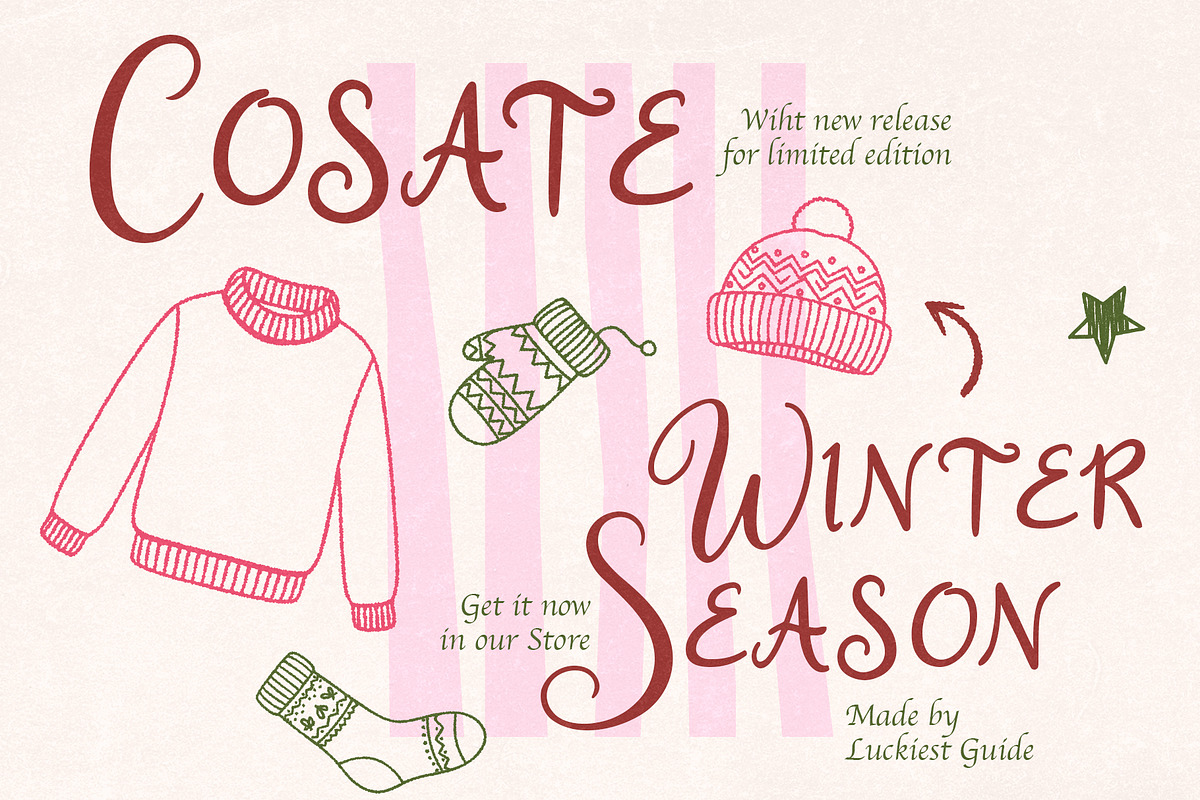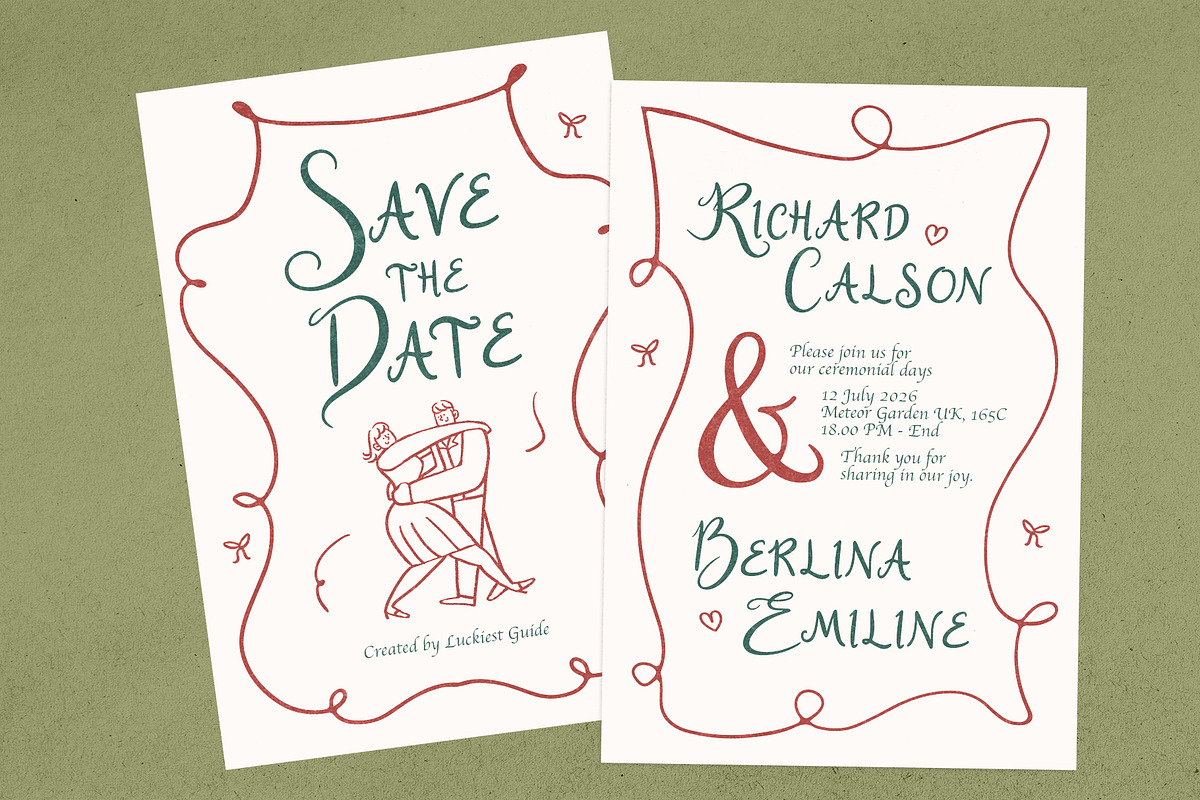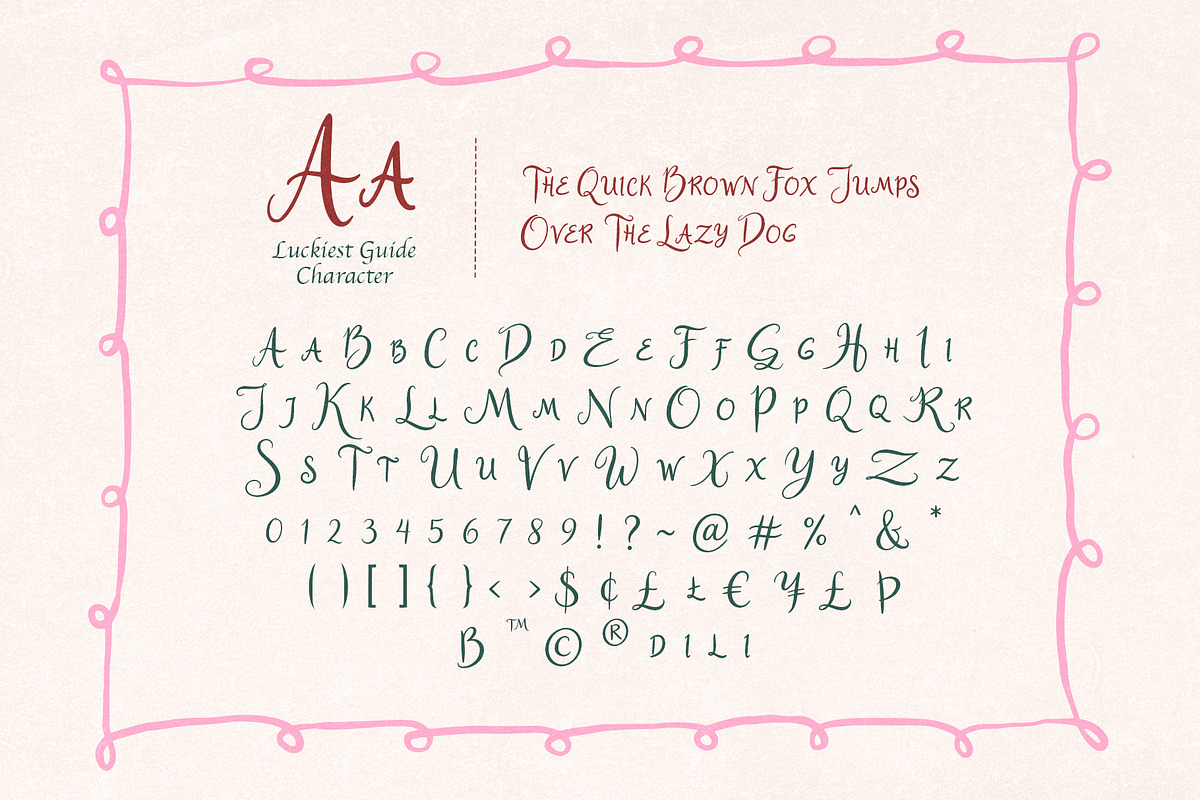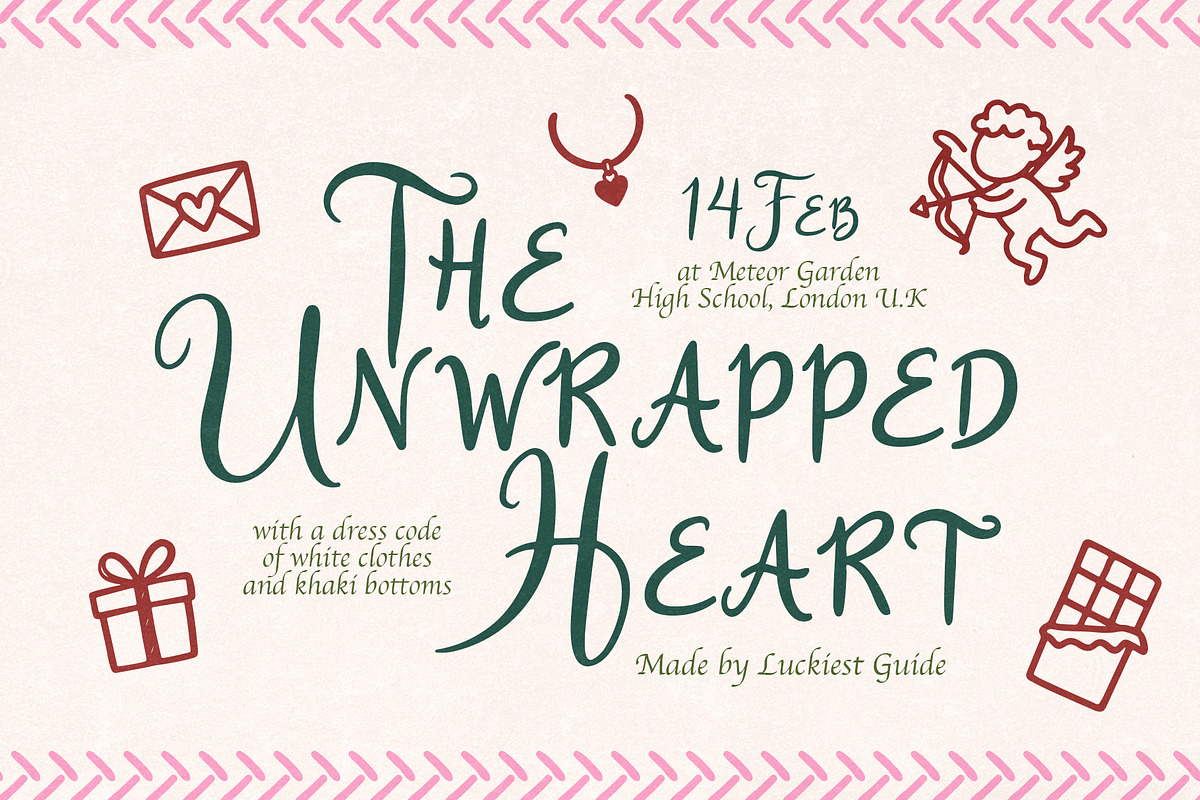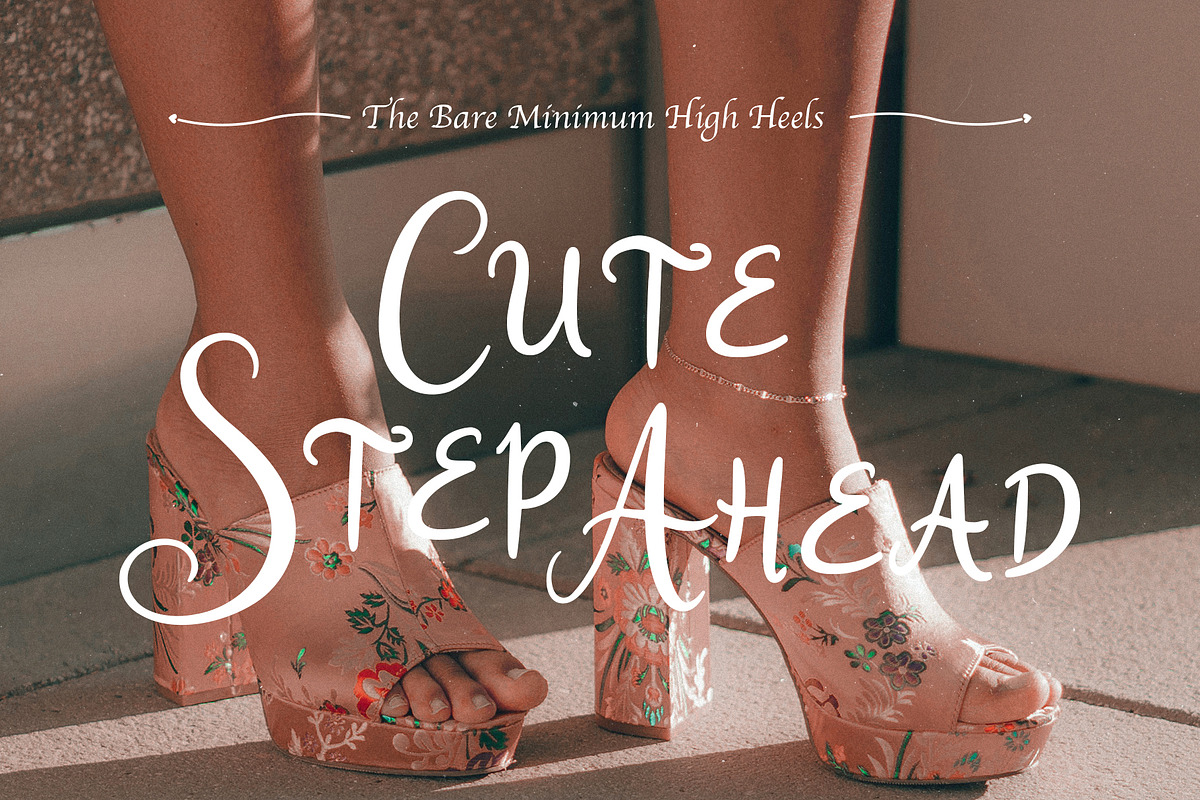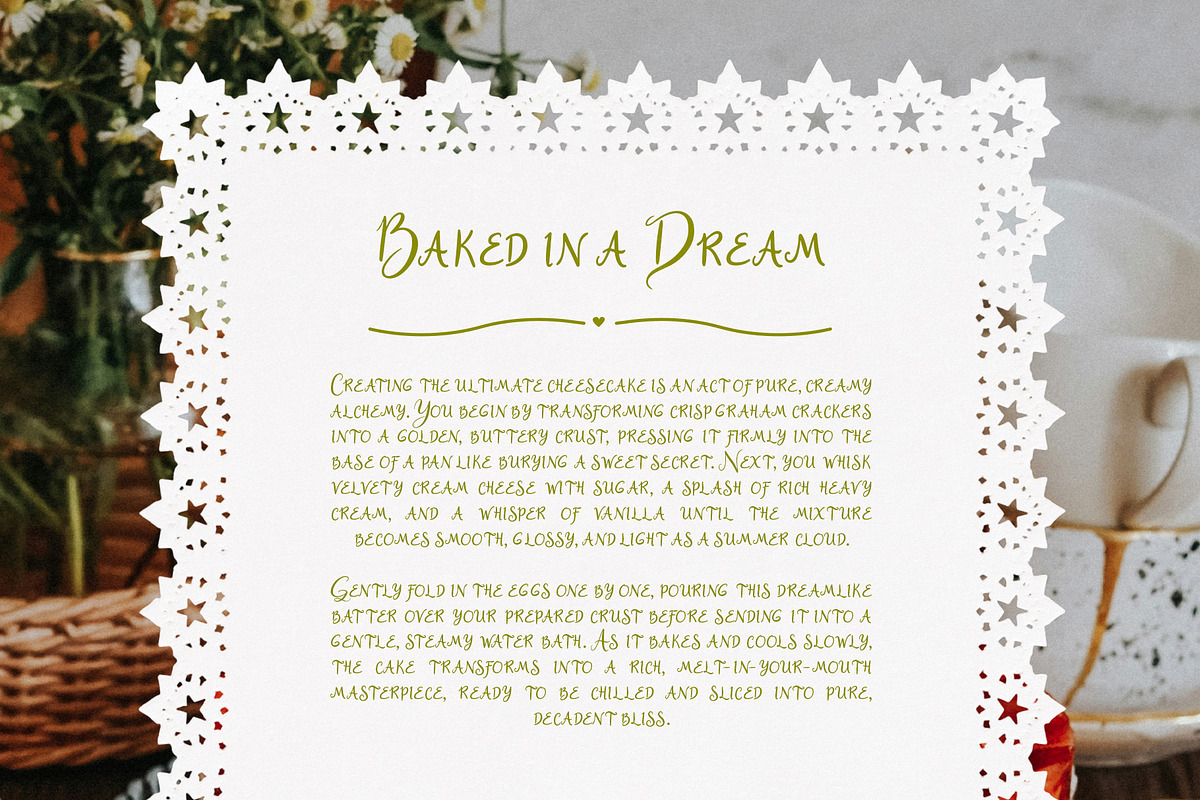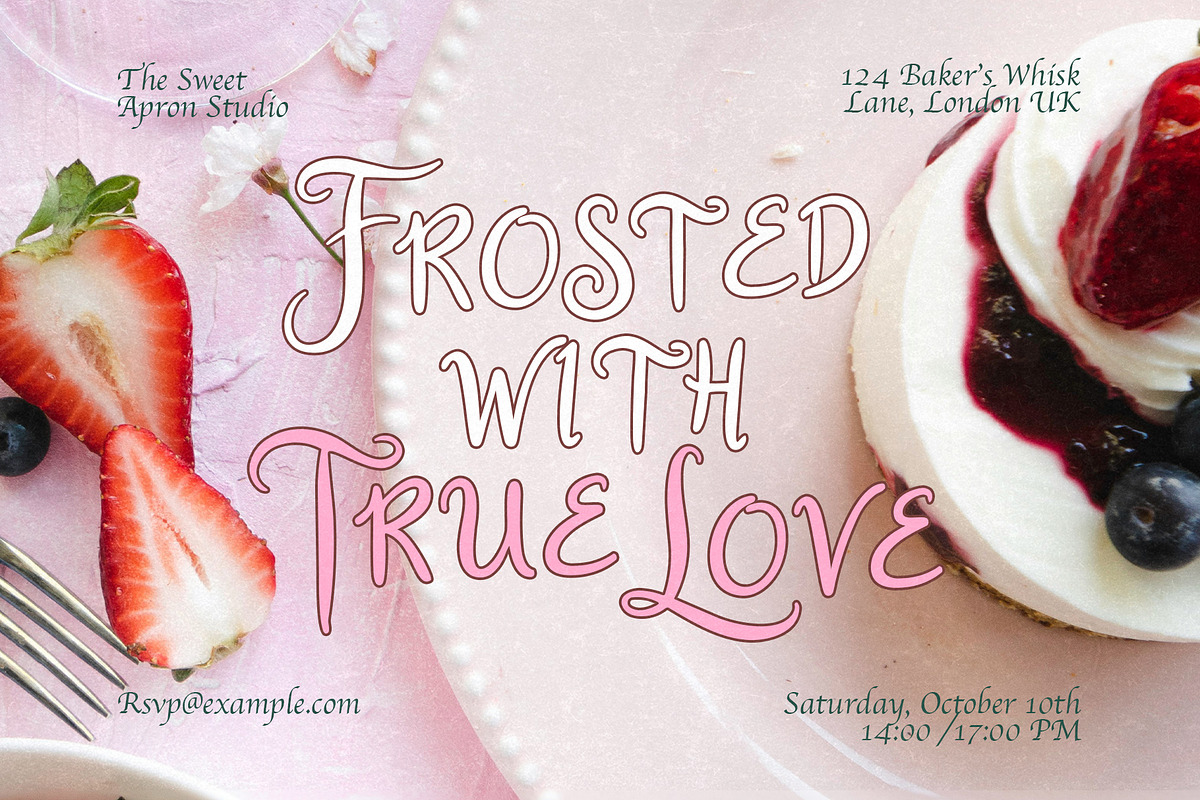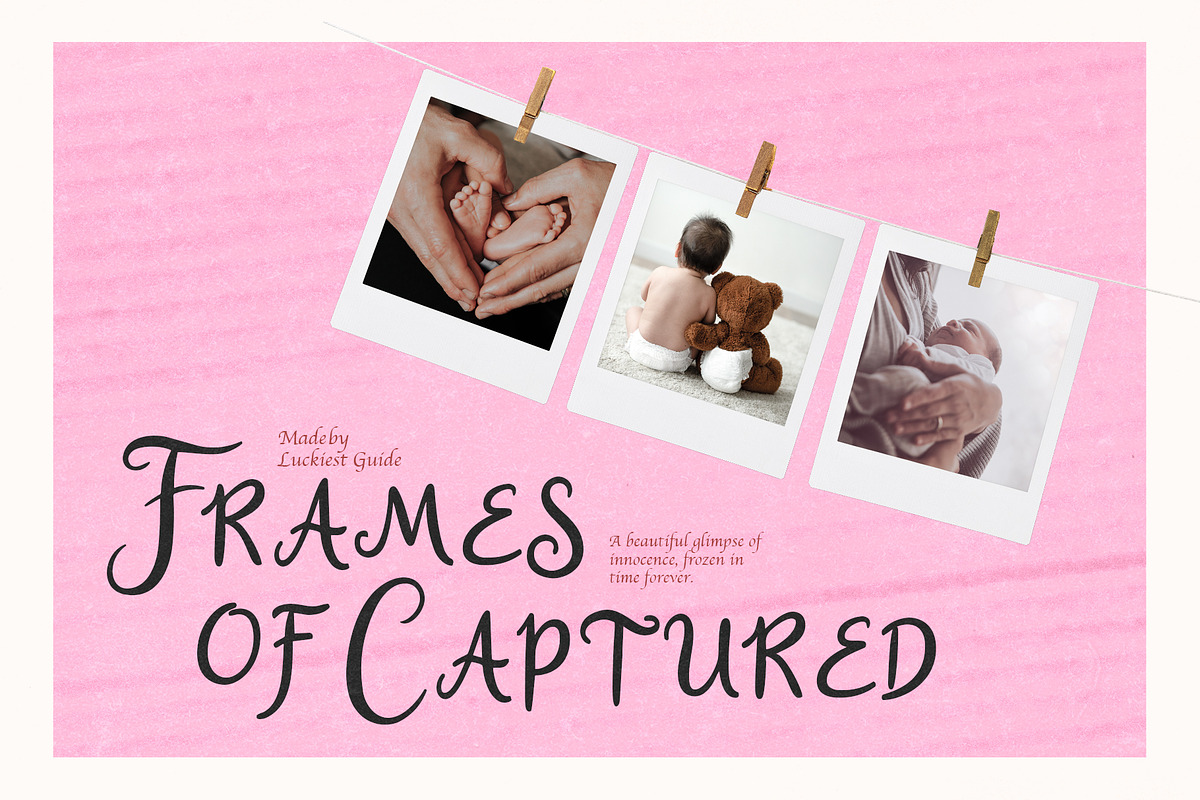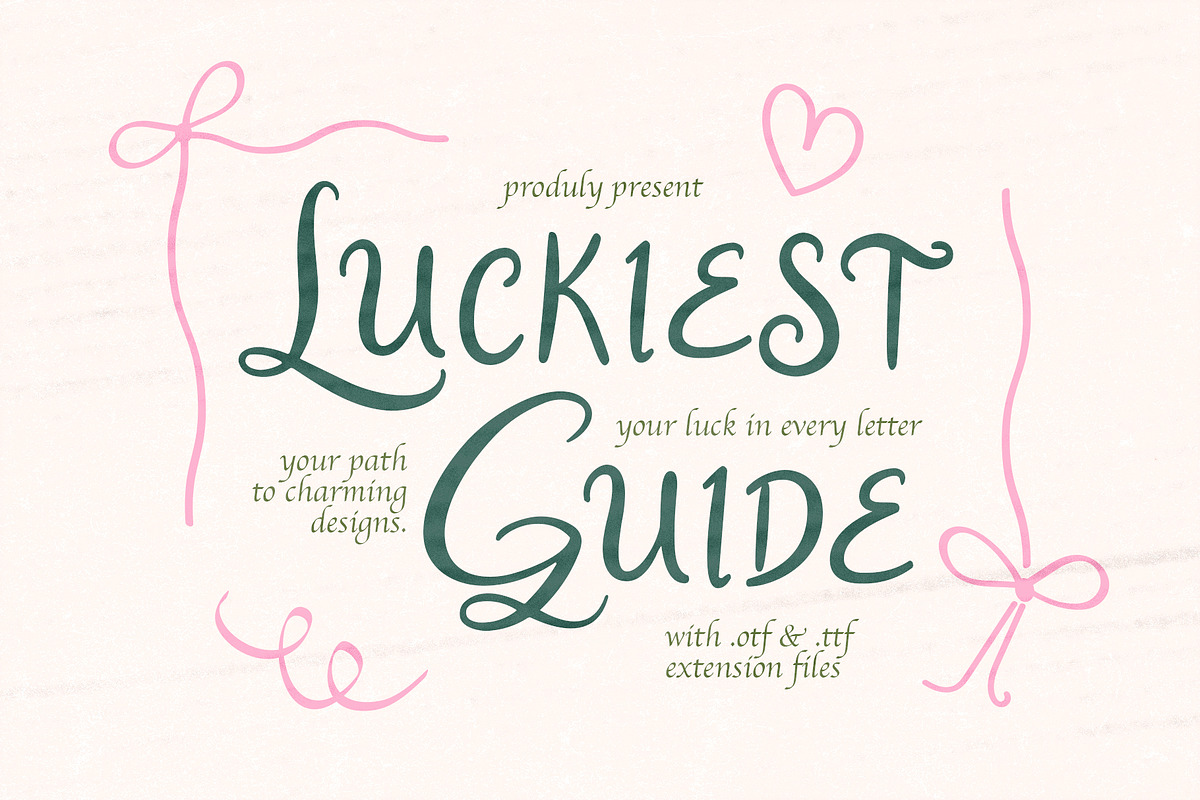
Luckiest Guide – Sweet & Playfull
Capture a dreamy, fairytale vibe with Luckiest Guide. This whimsical handwritten font is designed to be as light and airy as a pastel palette. Whether you are working on logos, invitations, or lifestyle branding, its unique character shines through. Elevate your creative projects with a font that is effortlessly fun, authentically handmade, and undeniably feminine.